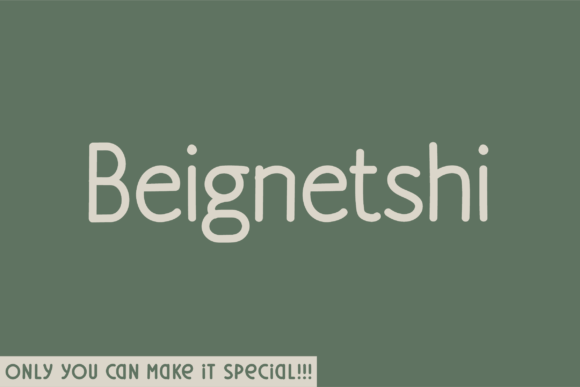
Introducing Beignetshi Font: A Masterpiece of Artistic Elegance
In the realm of typography, few fonts manage to capture the essence of charm and sophistication as effortlessly as Beignetshi. This strikingly unique sans serif font has been masterfully composed through an artistic hand-drawn approach, setting it apart in the world of design. The Beignetshi Font collection is a comprehensive set that incorporates uppercase, lowercase, numbers, and functional letters, each meticulously crafted to radiate a persuasive allure noticeable in every design it graces.
The Artistic Genesis of Beignetshi
The journey of Beignetshi began with a vision to create a font that would stand out in the crowded world of typography. The creator, driven by a passion for artistic expression, embarked on a meticulous process of hand-drawing each letter. This approach not only ensured a level of uniqueness but also infused the font with a personal touch that is hard to find in digitally generated fonts. The result is a collection that exudes an air of elegance and sophistication, making it an ideal choice for designers looking to add a touch of class to their work.
Design Characteristics of Beignetshi
One of the defining features of the Beignetshi Font is its distinct termination of each letter. Unlike conventional fonts that often rely on standard terminations, Beignetshi boasts unique endings that contribute to its charm. This distinctive characteristic forms a harmonious blend of pleasantry and assertiveness, making it versatile enough to be used in a variety of design contexts. Whether it’s for a luxury brand logo, a high-end product advertisement, or an elegant wedding invitation, Beignetshi brings a level of sophistication that is hard to match.
Comprehensive Collection
The Beignetshi Font collection is comprehensive, encompassing not just the basics but also a wide range of characters and symbols. This includes:
- Uppercase Letters: Majestic and bold, perfect for headings and titles.
- Lowercase Letters: Elegant and fluid, ideal for body text and descriptions.
- Numbers: Clear and legible, suitable for a variety of numerical applications.
- Functional Letters: Including punctuation and special characters, ensuring versatility in use.
This extensive range allows designers to explore various creative avenues, from editorial design to digital media, without the limitations of a restricted character set.
Applications of Beignetshi
Given its unique design and versatile nature, Beignetshi can be applied across a multitude of design projects. Some of the most notable applications include:
- Branding and Logos: The distinctive charm of Beignetshi makes it an excellent choice for brands looking to establish a sophisticated and memorable identity.
- Advertising: For advertisements that demand attention and exude luxury, Beignetshi’s assertive yet pleasant demeanor proves highly effective.
- Wedding and Event Invitations: The elegance of Beignetshi lends itself beautifully to wedding invitations, event posters, and other ceremonial designs.
- Packaging: For products that aim to communicate luxury and quality, Beignetshi can be used to create stunning packaging designs.
- Digital Media: Websites, mobile apps, and digital platforms can all benefit from Beignetshi’s modern appeal and readability.
Why Choose Beignetshi?
In a market saturated with generic fonts, Beignetshi stands out for several reasons:
- Uniqueness: Its hand-drawn origin ensures a level of uniqueness that is hard to find in mass-produced fonts.
- Versatility: Suitable for a wide range of projects, from luxury branding to elegant invitations.
- Elegance: It brings a touch of sophistication and charm to any design.
- Readability: Despite its unique design, Beignetshi maintains a high level of readability, making it practical for various applications.
Beignetshi Font is more than just a collection of letters; it’s a design statement. With its artistic hand-drawn approach, comprehensive character set, and distinctive design characteristics, Beignetshi offers designers a tool to elevate their work. Whether you’re aiming to create a brand identity that stands out, design an advertisement that captures attention, or simply add a touch of elegance to your project, Beignetshi is an ideal choice. In the world of typography, Beignetshi is not just a font; it’s a masterpiece of artistic elegance, ready to leave its mark on the world of design.